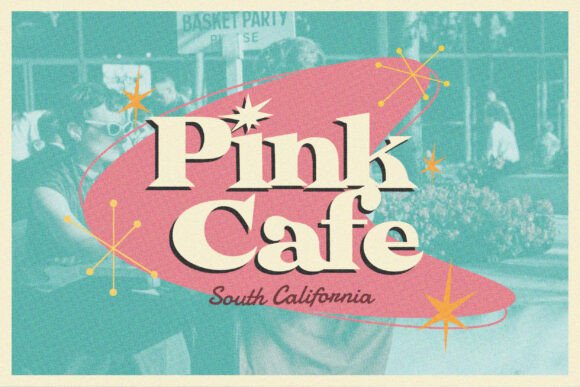
Introducing Atomic Circle Font: The Ultimate Mid Century & Retro Style Font
The Atomic Circle Font is a stunning mid-century and retro-style font that has taken the design world by storm. Its unique blend of vintage charm and modern flair makes it the perfect choice for a wide range of design projects, from display and product design to digital and print applications. In this article, we’ll dive into the world of Atomic Circle Font, exploring its features, uses, and benefits, as well as providing tips and inspiration for incorporating it into your designs.
What is Atomic Circle Font?
Atomic Circle Font is a carefully crafted typeface that embodies the spirit of the mid-century modern era. Its design is characterized by clean lines, geometric shapes, and a distinctive retro flair. The font’s rounded edges and circular shapes evoke a sense of nostalgia and playfulness, making it perfect for designs that require a touch of vintage charm.
Key Features of Atomic Circle Font
- Mid-century modern design: Atomic Circle Font boasts a unique blend of vintage and modern elements, making it perfect for designs that require a retro touch.
- Clean lines and geometric shapes: The font’s clean lines and geometric shapes ensure that it remains legible and visually appealing, even at smaller sizes.
- Rounded edges and circular shapes: The font’s rounded edges and circular shapes add a touch of playfulness and whimsy, making it perfect for designs that require a more creative approach.
- Highly versatile: Atomic Circle Font is suitable for a wide range of design projects, from display and product design to digital and print applications.
Uses of Atomic Circle Font
Atomic Circle Font is an incredibly versatile typeface that can be used in a variety of design projects. Here are some of the most popular uses of this stunning font:
Design Projects that Benefit from Atomic Circle Font
- Shirts and apparel: Add a touch of mid-century modern style to your t-shirt designs, hoodies, and other apparel with Atomic Circle Font.
- Poster designs: Create eye-catching posters that showcase your brand’s personality with this stunning font.
- Stickers and labels: Use Atomic Circle Font to add a touch of retro charm to your stickers and labels.
- Logos and branding: Establish your brand’s identity with a custom logo designed using Atomic Circle Font.
- Greeting cards and invitations: Add a touch of elegance and sophistication to your greeting cards and invitations with this beautiful font.
- Cricut projects: Use Atomic Circle Font to create stunning Cricut projects, from custom vinyl decals to intricate paper cutouts.
- Posters and magazines: Add a touch of mid-century modern style to your posters and magazine designs with Atomic Circle Font.
- Social media graphics: Create engaging social media graphics that showcase your brand’s personality with this versatile font.
- Planner prints and journals: Use Atomic Circle Font to add a touch of elegance and sophistication to your planner prints and journals.
- Websites and blogs: Establish your brand’s online identity with a custom website or blog design that incorporates Atomic Circle Font.
Benefits of Using Atomic Circle Font
Atomic Circle Font offers a range of benefits that make it an attractive choice for designers and brands. Here are some of the most significant advantages of using this stunning font:
Why Choose Atomic Circle Font?
- Unique and distinctive: Atomic Circle Font is a one-of-a-kind typeface that will help your designs stand out from the crowd.
- Highly legible: The font’s clean lines and geometric shapes ensure that it remains legible, even at smaller sizes.
- Versatile: Atomic Circle Font is suitable for a wide range of design projects, from display and product design to digital and print applications.
- Easily customizable: The font’s simple and elegant design makes it easy to customize and adapt to your brand’s unique needs.
- Time-saving: With Atomic Circle Font, you can create stunning designs in a fraction of the time it would take to design from scratch.
Tips for Using Atomic Circle Font
To get the most out of Atomic Circle Font, here are some tips and best practices to keep in mind:
Getting the Most out of Atomic Circle Font
- Experiment with font sizes: Atomic Circle Font looks great at a range of font sizes, from large display fonts to smaller body text.
- Play with color: The font’s simple design makes it easy to adapt to a range of colors and color schemes.
- Combine with other fonts: Atomic Circle Font pairs well with a range of other fonts, from modern sans-serifs to elegant serifs.
- Use in combination with graphics: The font’s simple design makes it easy to combine with graphics and illustrations.
- Keep it simple: Don’t be afraid to keep things simple and elegant with Atomic Circle Font – sometimes less is more.
Inspiration and Examples
To give you a better sense of what’s possible with Atomic Circle Font, here are some inspiring examples and case studies:
Atomic Circle Font in Action
- Mid-century modern branding: Use Atomic Circle Font to create a stunning mid-century modern brand identity that showcases your brand’s personality.
- Retro-style posters: Create eye-catching posters that evoke the spirit of the 1950s and 60s with Atomic Circle Font.
- Vintage-inspired apparel: Add a touch of vintage charm to your apparel designs with Atomic Circle Font.
- Elegant stationery: Use Atomic Circle Font to create elegant stationery and correspondence that showcases your brand’s sophistication.
With its unique blend of mid-century modern style and retro flair, Atomic Circle Font is the perfect choice for designers and brands looking to add a touch of vintage charm to their designs. Whether you’re working on a display project, product design, or digital application, this stunning font is sure to impress.
In conclusion, Atomic Circle Font is a versatile and stunning typeface that offers a range of benefits and uses. With its unique blend of mid-century modern style and retro flair, it’s the perfect choice for designers and brands looking to add a touch of vintage charm to their designs. Whether you’re working on a display project, product design, or digital application, Atomic Circle Font is sure to impress.